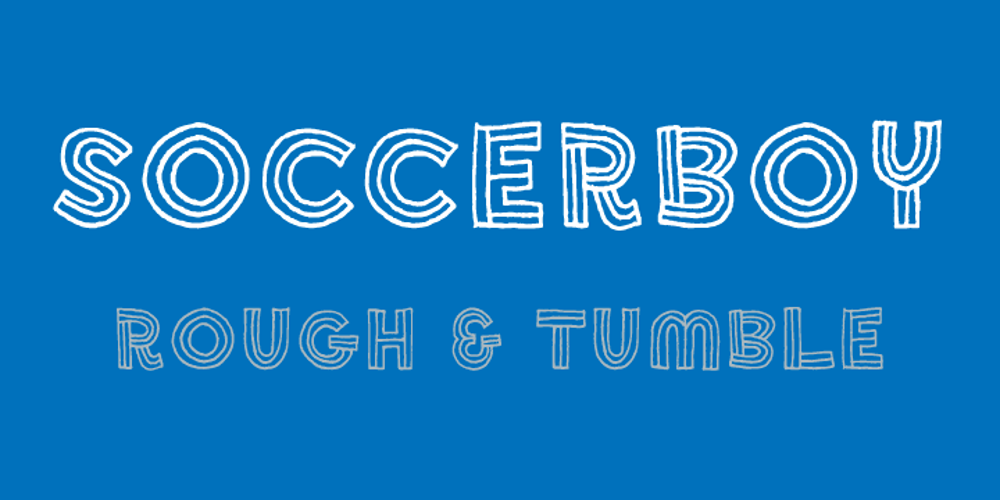
Soccerboy
Soccerboy font
Soccerboy Font Family was designed by Chank Diesel and published by Chank. Soccerboy contains 1 styles and family package options. 1977 was a good year for soccer. Attendance for the North American Soccer League (NASL) grew 33%, to 13,000 per game. Brazillian soccer legend Pelé played his final match, kicking for both the New York Cosmos and Santos of Brazil. And a soccerboy named Charlie was crowned with the nickname Chanky. In honor of his soccer hero Pelé, Charlie insisted the neighbor kids call him Chelé. They laughed at him and called him Chanky after Spanky from the Little Rascals. As he grew into his manhood, he became Chank the internationally renowned font designer. Chank created this font Soccerboy, as filtered through the artistic eyes of his 1977 childhood. It’s a tri-line font, hand-drawn in Chank’s signature cartoon whimsy. Soccerboy encourages play with color and alternate characters. Create coloring effects yourself using layers and the magic wand and paint bucket tools in Adobe Photoshop or Illustrator.